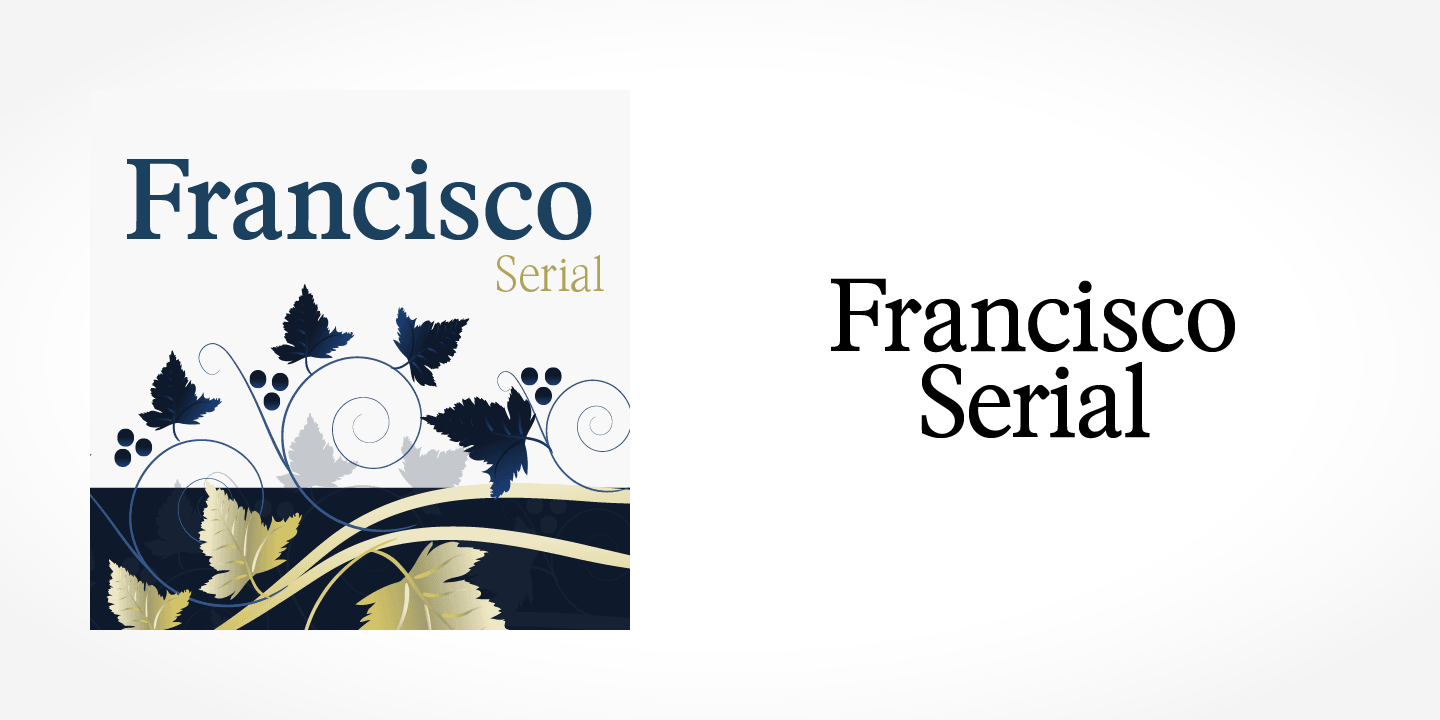
A client of mine is being veerryyy specific and likes the ‘eif’ in this logo. I suspect its a design but does anyone know of a serif font with slightly curved edges like this, similar weighting and the angle on the top of the ‘i’?
I found several very similar but not identical fonts: Tiempos Semibold, Plantin Bold, Copernicus Extrabold, and Francisco Serial Bold. There are small differences mainly in the top overhang of the f. Francisco Serial Bold is the closest I found.